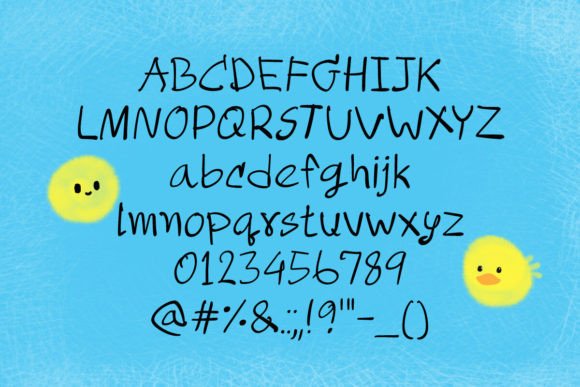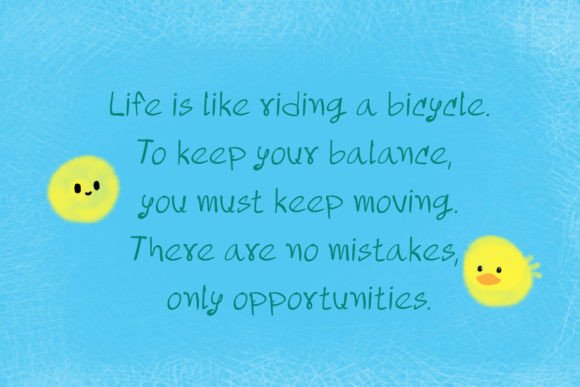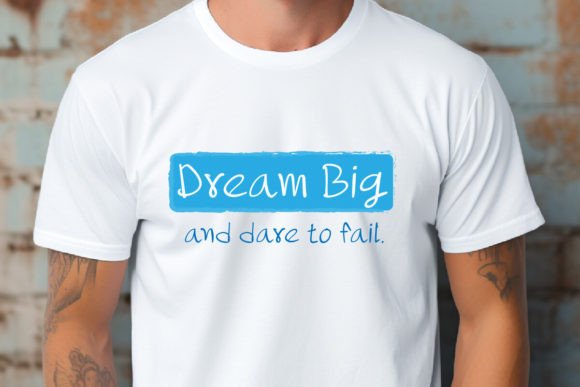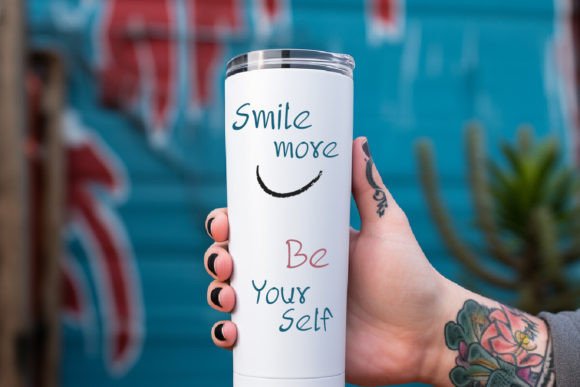
Introduction to Ped Kapkap Font
Have you ever been stuck in a creative rut, searching for the perfect font to give your project that extra oomph? For many designers, the right font can make all the difference between a bland design and a truly eye-catching one. That’s where the Ped Kapkap Font comes in – a quirky and playful typeface that’s perfect for adding a relaxed touch to your high-quality designs.
Whether you’re working on a fun project, like a wedding invitation or a Fall-themed poster, or just need a design resource for your social media posts, the Ped Kapkap Font is a valuable addition to any designer’s toolkit. And the best part? It’s available for free download, making it an accessible resource for designers of all levels.
- This unique font is designed to add a touch of creativity to any project, making it an ideal choice for designers seeking a distinctive design resource.
- The Ped Kapkap Font is a versatile design element that can be used in a variety of creative projects, from graphics to typography.
As a designer, I’m always on the lookout for high quality design resources that can elevate my creative projects. Recently, I stumbled upon the Ped Kapkap Font, a free download that has caught my attention. In this review, I’ll share my honest thoughts on this font and its suitability for your next design project.
- ✨ Unique and quirky design style that adds a touch of personality to any project
- ✨ High quality glyphs that are crisp and clear, even at small sizes
However, I do have some reservations:
- ⚠️ Limited character set, which might be a concern for projects that require a wide range of characters
- ⚠️ Not ideal for formal or professional projects, as it may come across as too playful
Overall, I think the Ped Kapkap Font is a great addition to any designer’s toolkit. While it may not be suitable for every project, it’s definitely a fun and creative resource to have in your arsenal. If you’re looking for a unique and high quality font for your next design project, I’d definitely recommend giving the Ped Kapkap Font a try.
The Ped Kapkap Font is suitable for various creative projects, including logos, brochures, business cards, and social media graphics. Its high-quality design and transparent background make it perfect for designs that require attention to detail and a professional look.